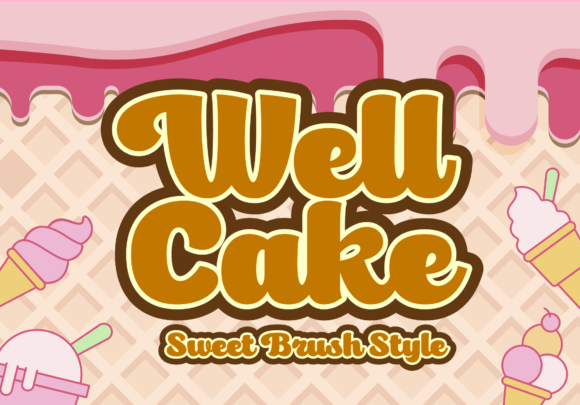
Journey through the realm of typography with Well Cake Font, a captivating script font that embodies the essence of retro elegance. This meticulously crafted masterpiece, brought to life by the talented Sign Studios, exudes a charming handwritten style, reminiscent of vintage posters and timeless designs. Immerse yourself in the world of Well Cake, where creativity and nostalgia intertwine to create something truly remarkable.
With its thick, rounded letters and playful swashes, Well Cake emanates a sense of warmth and nostalgia. It's a font that harkens back to a simpler time, when handwritten letters conveyed heartfelt messages and personal connections. Each character in Well Cake is a work of art, meticulously designed to evoke a sense of authenticity and charm.
Unleash your creativity and let Well Cake take your designs to new heights. This versatile font is perfect for a multitude of projects, from eye-catching posters and logos to alluring branding and social media posts. Its retro vibe adds a touch of timeless charm to any creation, while its modern sensibility ensures that your designs remain relevant and captivating.
With Well Cake, you'll have the power to craft designs that resonate with your audience. Its bold, distinctive style is sure to leave a lasting impression, making your creations stand out from the crowd. Whether you're a seasoned designer or just starting your creative journey, Well Cake is the perfect font to add a touch of magic to your work.
Unlock the full potential of Well Cake today and embark on a typographic adventure filled with charm, authenticity, and limitless possibilities. Embrace the retro elegance of this remarkable font and let your designs flourish with a timeless appeal that will capture hearts and minds alike.